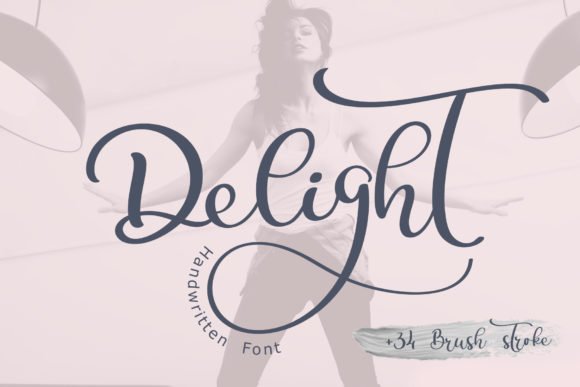
The Delight Font: Elevate Your Design with Elegance
Have you ever been in the midst of a creative project, staring blankly at a blank page, desperately searching for the perfect font to bring your vision to life? It’s a familiar feeling for many designers, and one that can be both frustrating and exciting. The right font can make all the difference in conveying the tone and style of your design.
Enter the Delight Font, a beautiful handwritten calligraphy font that exudes elegance and sophistication. With its feminine flair, Delight Font is perfect for any design that needs to look upscale and chic. Whether you’re creating a wedding invitation, a fashion brochure, or a luxury brand logo, Delight Font is sure to impress.
For designers, the Delight Font is a valuable asset in their toolkit. Its versatility and timelessness make it a go-to choice for projects that require a touch of sophistication and refinement. With Delight Font, you can add a level of polish and sophistication to your designs, setting them apart from the rest.
Delight Font Key Features
- Unique Characteristics: Delight Font features a unique blend of modern and elegant design elements, including swashes, flourishes, and intricate details, making it perfect for high-end branding and design projects.
- Kerning and Ligatures: Delight Font includes advanced kerning and ligature pairs, ensuring seamless letter spacing and a polished, professional appearance in any design application.
- Font Weight and Style: The font family includes a range of weights and styles, from Light to Black, as well as Italic and Oblique options, providing designers with the flexibility to create complex and nuanced typography.
Delight Font Review
Overall, I’m impressed with Delight Font’s playful and whimsical feel. ✨ The font’s rounded edges and gentle curves create a friendly and approachable atmosphere, making it perfect for designs targeting a younger audience or those looking to add a touch of warmth.
Here are some of the things I like about Delight Font:
- ✨ The font’s versatility: Delight Font comes in various weights and styles, allowing designers to experiment with different looks and moods.
- ✨ The font’s legibility: Despite its playful nature, Delight Font remains easy to read, even at smaller font sizes.
- ⚠️ The font’s expressiveness may not be suitable for all design contexts, particularly those requiring a more formal or professional tone.
- ⚠️ The font’s complexity may make it challenging to use in designs with intricate layouts or complex typography.
Overall, I think Delight Font is a great addition to any designer’s toolkit. While it may not be suitable for all design projects, its playful and versatile nature makes it a great choice for those looking to add a touch of whimsy to their designs.
Tips for Getting the Most Out of Delight Font
Delight Font is a versatile font that can be used in a variety of contexts. To get the most out of it, consider the following tips:
- Use Delight Font for titles and headings to add a touch of elegance and sophistication.
- Pair Delight Font with other fonts to create a unique and eye-catching design.